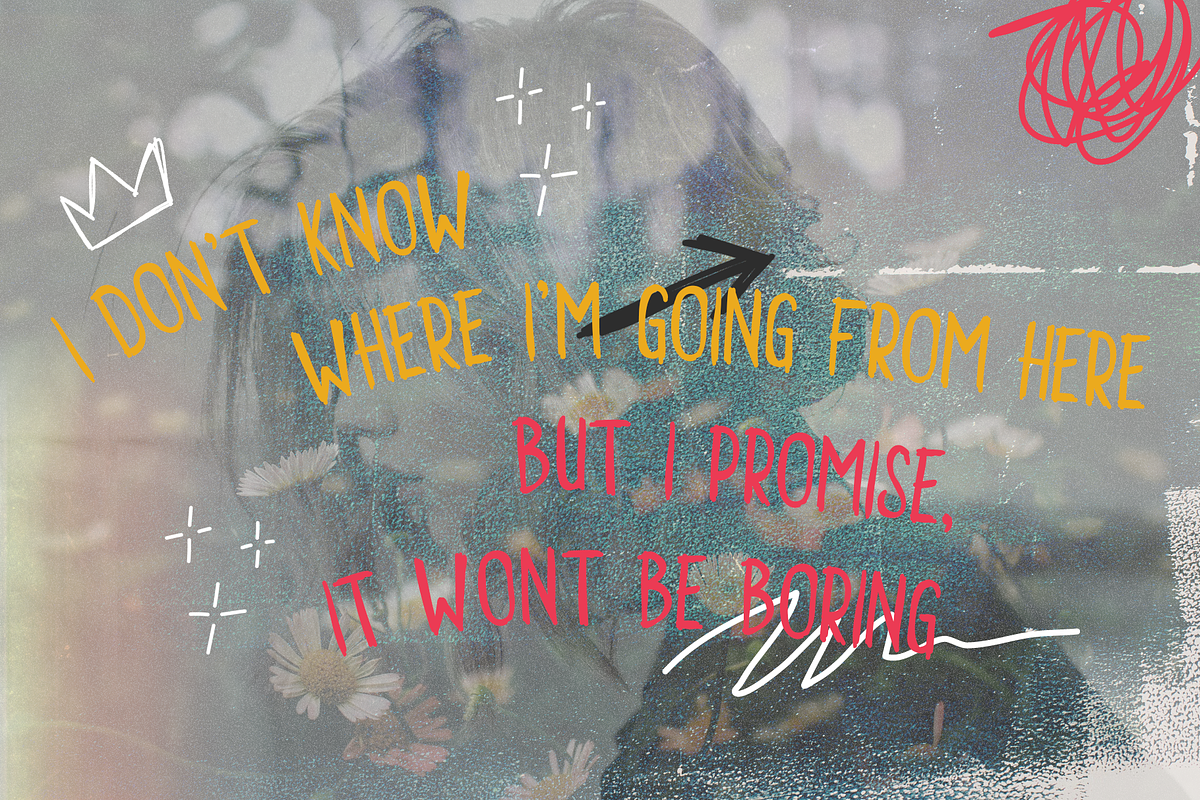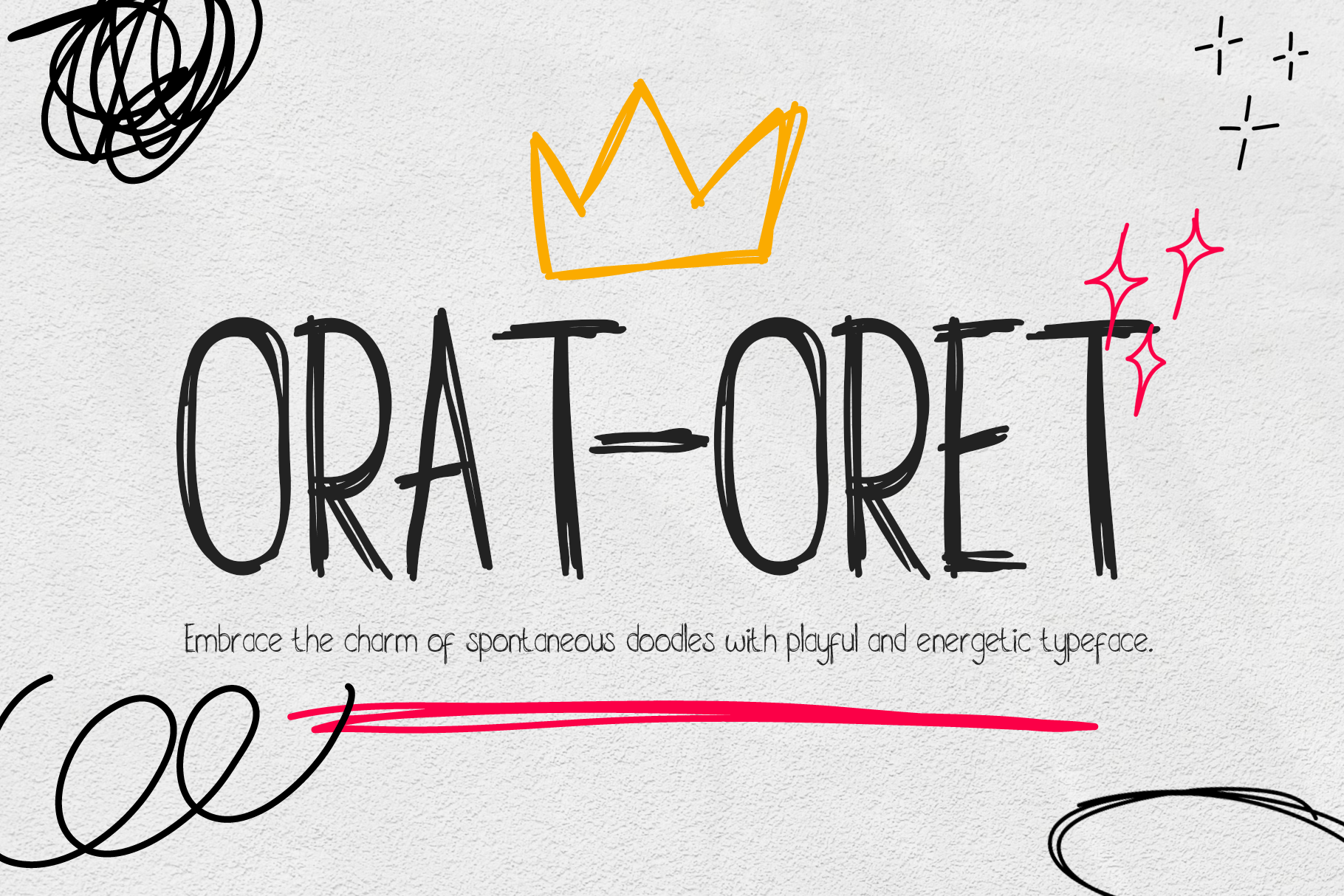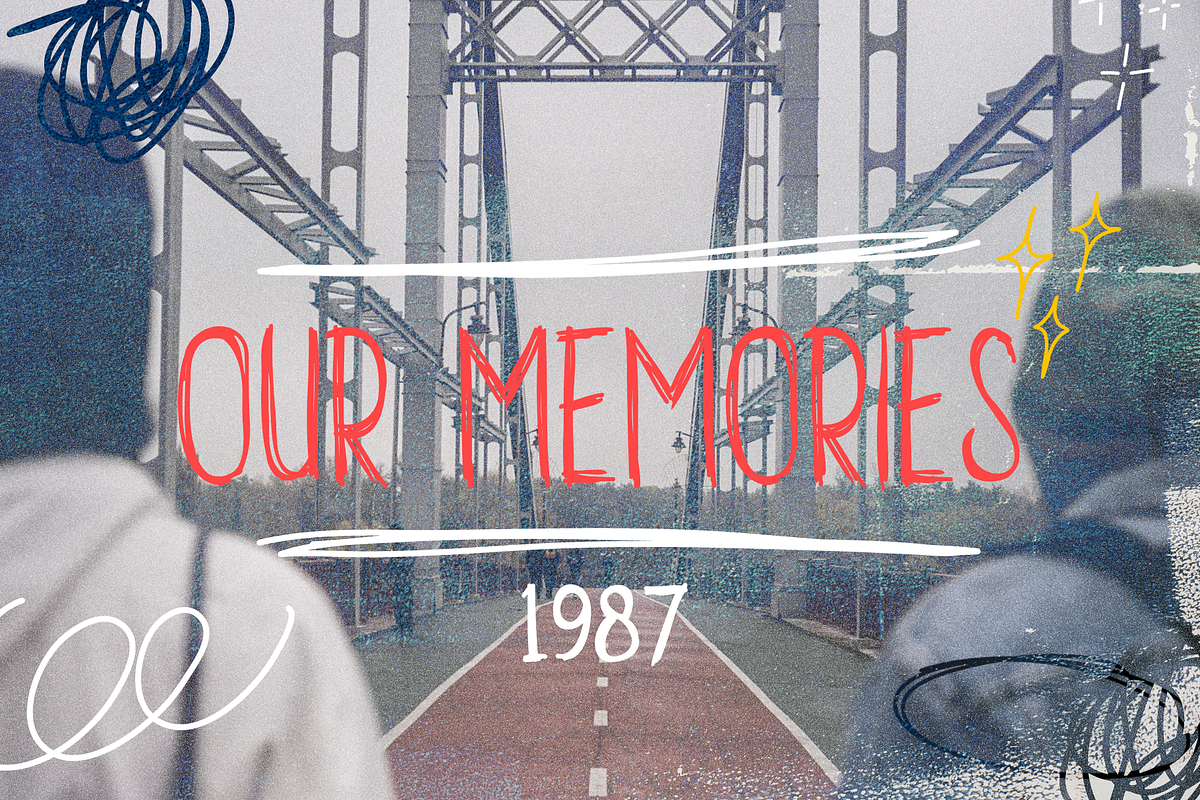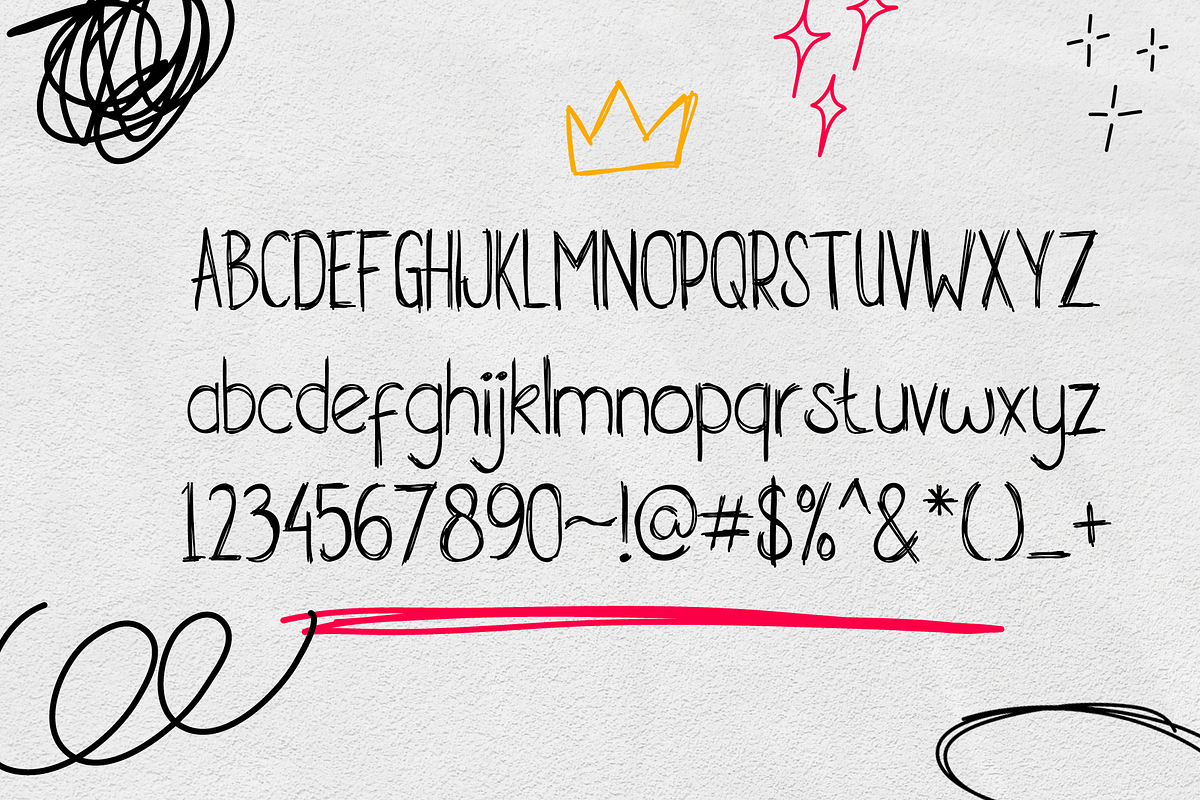
Orat-oret / Handwriting Font
Introducing our latest font creation: orat-oret! Embrace the charm of spontaneous doodles with this playful and energetic typeface. Designed to mimic the whimsical strokes of a marker on paper, Scribble Craze injects a burst of creativity into your designs.
With its irregular lines and carefree style, ideal for projects seeking a unique and handcrafted aesthetic. Whether you're designing posters, invitations, logos, or social media graphics.